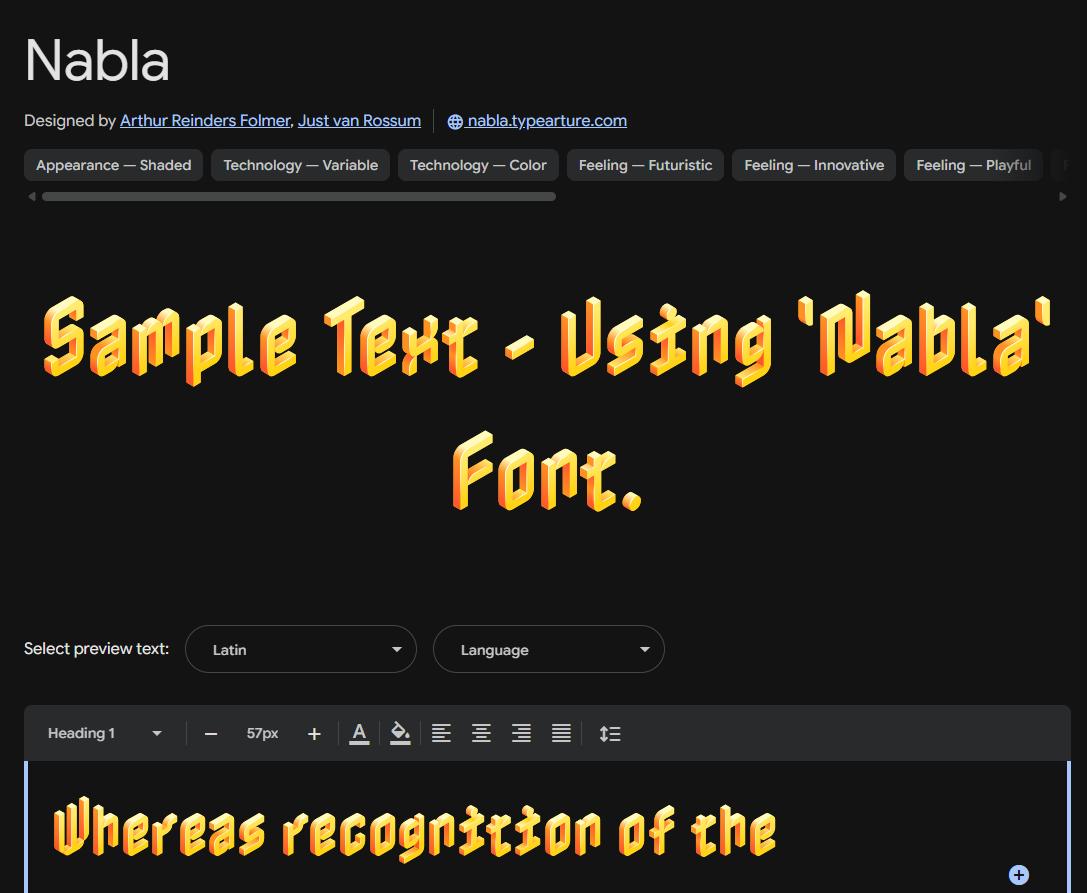
Engineered at the nexus of isometric geometry and the COLRv1 color vector specification, Nabla represents a sophisticated evolution in variable typography crafted by Arthur Reinders Folmer and Just van Rossum. This high-performance typeface utilizes a dual-axis system, specifically the Depth (EDPT) and Highlight (EHLT) axes, to interpolate complex three-dimensional extrusions and refractive surface properties directly within the browser's rendering engine. By leveraging the advanced gradients and palette-shifting capabilities of modern OpenType formats, Nabla transcends traditional static outlines, offering a scalable, multi-layered architectural aesthetic that optimizes semantic web structures while providing unprecedented control over volumetric shadow and specular intensity.
The Nabla font family represents a sophisticated implementation of COLRv1 Color font technology and Variable font axes, synthesizing a Shaded isometric Techno aesthetic that is simultaneously Stiff and Rugged yet remarkably Playful. By bridging Vintage arcade nostalgia with a Futuristic and Innovative structural logic, Nabla utilizes depth extrusion and layered gradients to project a Loud visual presence that remains Happy and Cute through its vibrant palette customization. This Innovative typeface challenges traditional rendering boundaries, offering a Techno appearance that oscillates between the Stiff, mechanical precision of its geometric grid and a Happy, Playful energy, ultimately delivering a Rugged and Loud typographic statement that feels both Vintage and entirely Futuristic.
Characterized by its bold isometric projection and chromatic layering via the COLRv1 format, Nabla-engineered by Arthur Reinders Folmer and Just van Rossum-is fundamentally unsuitable for high-density academic journals, judicial transcripts, or pharmaceutical labeling where extreme legibility and minimal cognitive load are mandatory. The typeface's dual-axis variability (EDPT and EHLT) creates a maximalist aesthetic that generates significant retinal interference and architectural noise when rendered at small point sizes, potentially compromising accessibility compliance for users requiring high-contrast, non-distracting letterforms. Furthermore, its reliance on modern color-gradient interpolation makes it an impractical choice for legacy archival systems or low-bandwidth transactional environments that prioritize raw data integrity over the exuberant, three-dimensional geometry of its variable glyphs.
Nabla is primarily designed for bold, expressive typography that utilizes isometric depth and vibrant color gradients. Its geometric architecture excels in retro-futuristic or neo-brutalist layouts where the COLRv1 specification provides rich, multi-layered color rendering without external images.
Yes, Nabla features variable axes that allow designers to manipulate the depth and direction of its isometric projection. By adjusting the EDPT (Extrusion Depth) and EHLT (Extrusion Highlight) axes, developers can dynamically alter the 3D appearance using CSS font-variation-settings.
Nabla supports CSS customization through the base-palette and font-palette properties, allowing for broad color adjustments. The font-palette property enables the overriding of specific color indices within the font's internal CPAL table to match brand-specific hexadecimal values.
This font is specifically optimized for large display headers and decorative accents rather than dense body copy. Due to its high level of detail and isometric complexity, Nabla loses visual legibility below certain pixel thresholds, making it unsuitable for high-density micro-typography.
The isometric projection can create visual overhangs that require manual adjustments to letter-spacing and line-height. Developers must often compensate for the font's varying bounding boxes by fine-tuning the margin or padding to prevent collisions between its extruded geometry and adjacent DOM elements.
Nabla relies on the COLRv1 format, which is currently supported by modern versions of Chrome, Edge, and other Chromium-based browsers. While Safari and Firefox have lagged in full implementation, Chromium's Skia engine ensures high-performance hardware-accelerated rendering of the font's complex gradients.
Nabla is an excellent choice for creating interactive 3D-style UI components like buttons or hero text without requiring heavy WebGL libraries. Using CSS transitions on its variable axes allows for smooth animations that simulate motion along the extrusion path during the browser's paint cycle.
The font provides specific variable axes that grant control over lighting effects, such as the intensity of highlights. Through the EHLT axis, users can manipulate the luminance of the extruded surfaces, effectively shifting the perceived light source without altering the underlying character geometry.
Compatibility with vector software depends on the application's support for the modern COLRv1 variable font standard. While Adobe Illustrator supports basic variable fonts, full color-vector fidelity for Nabla often requires specific updates that address the evolution of the OpenType-SVG and COLRv1 rendering engines.
Applying CSS filters like blur or drop-shadow affects the entire rendered glyph as a single flattened element. Because Nabla is drawn as a series of vector layers, applying a filter: drop-shadow() will calculate the shadow based on the final composited isometric shape rather than individual internal color layers.